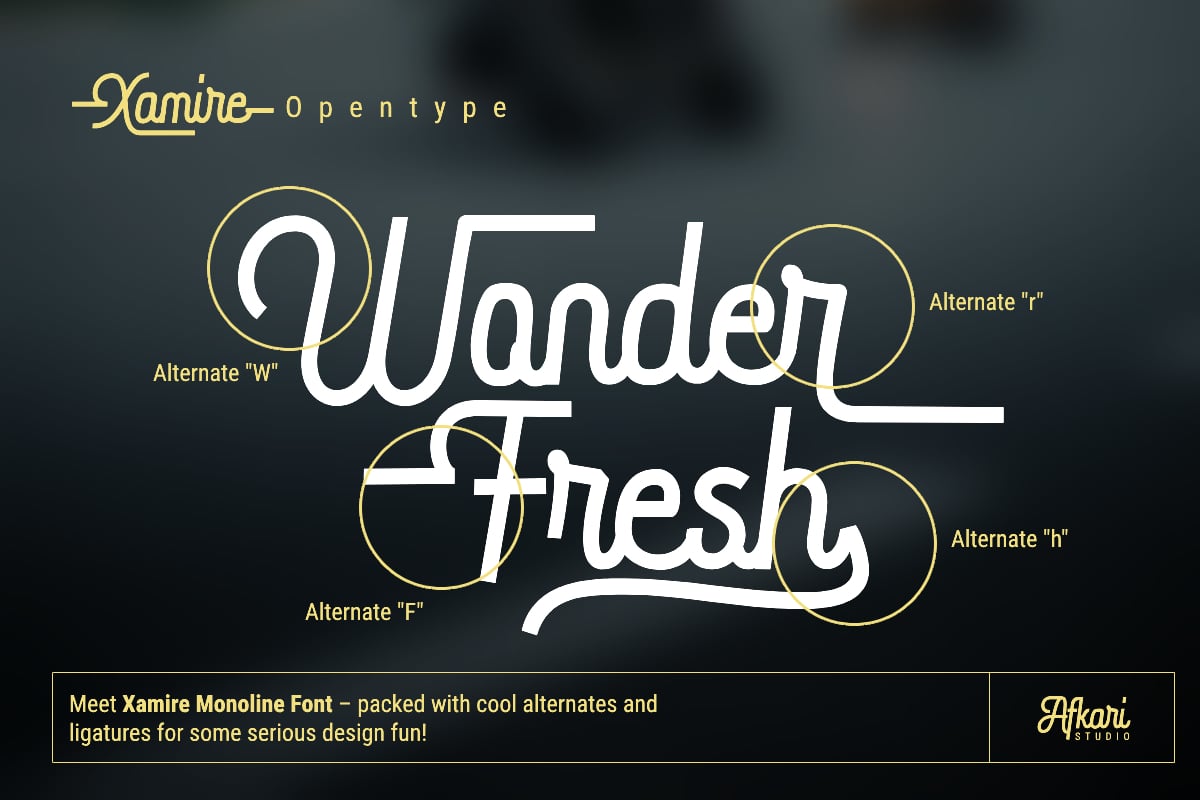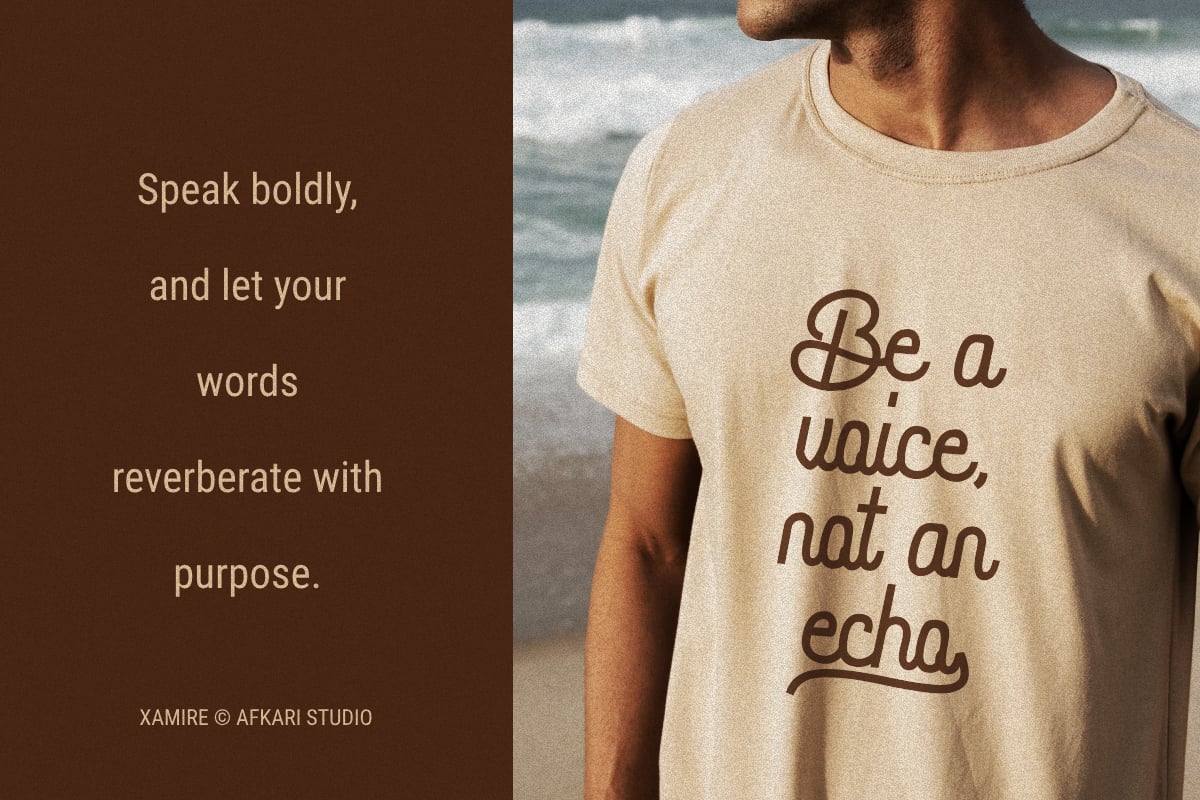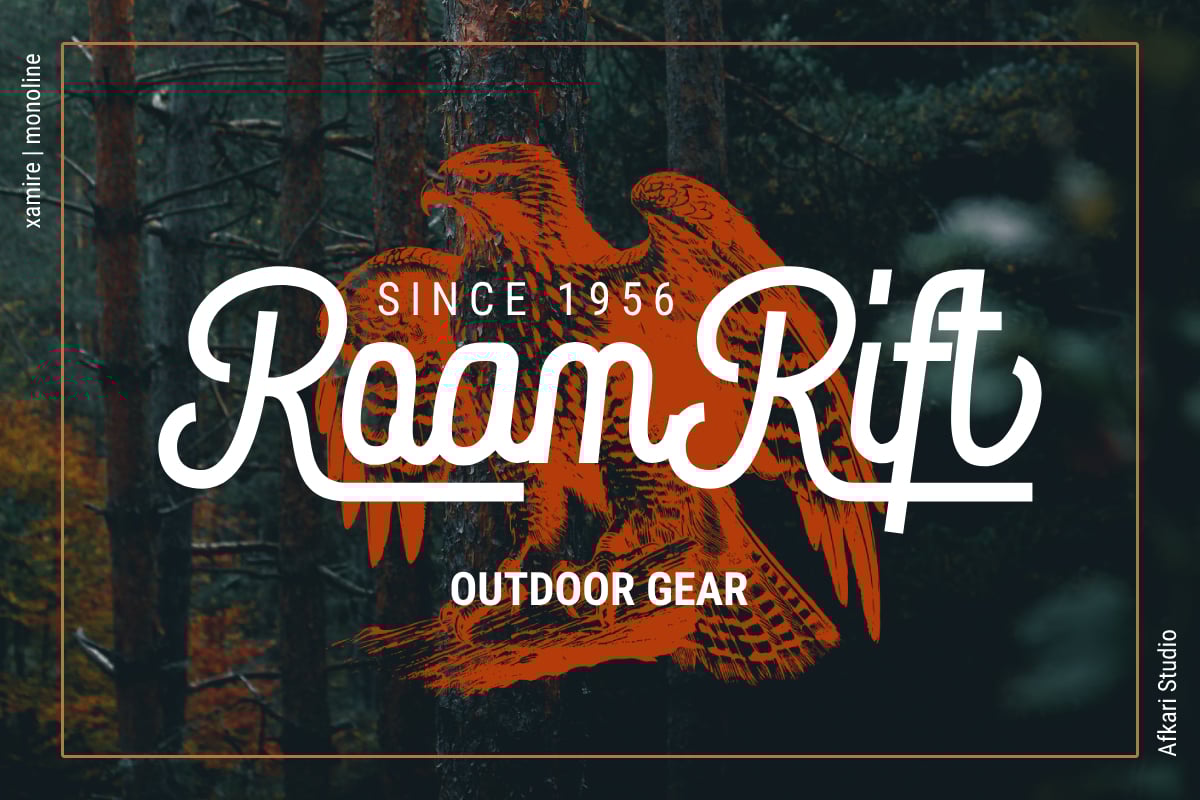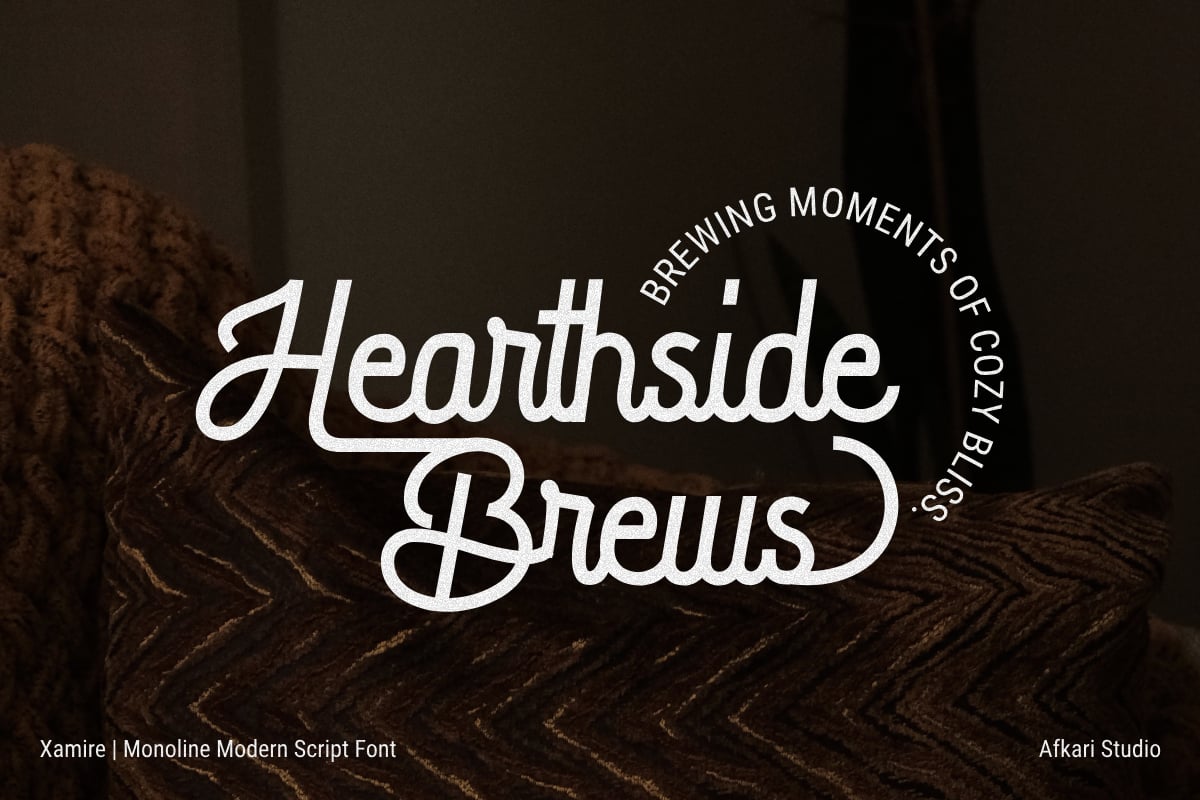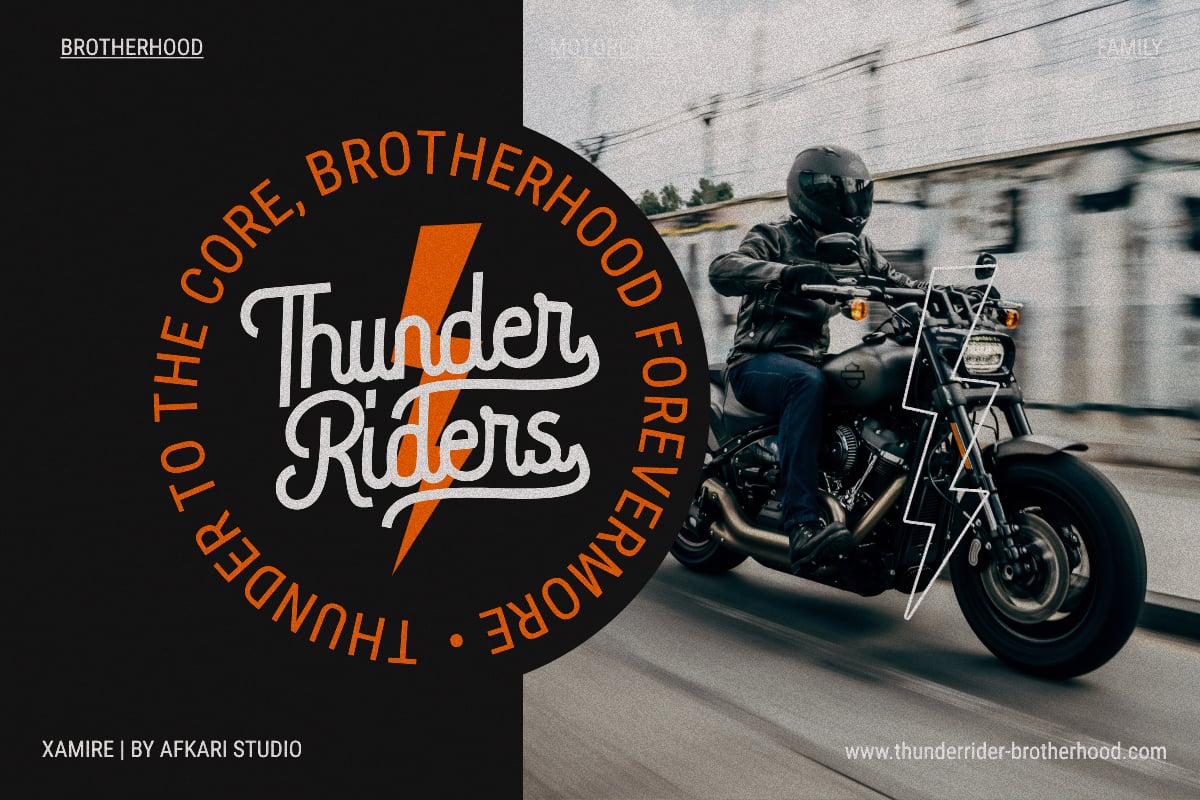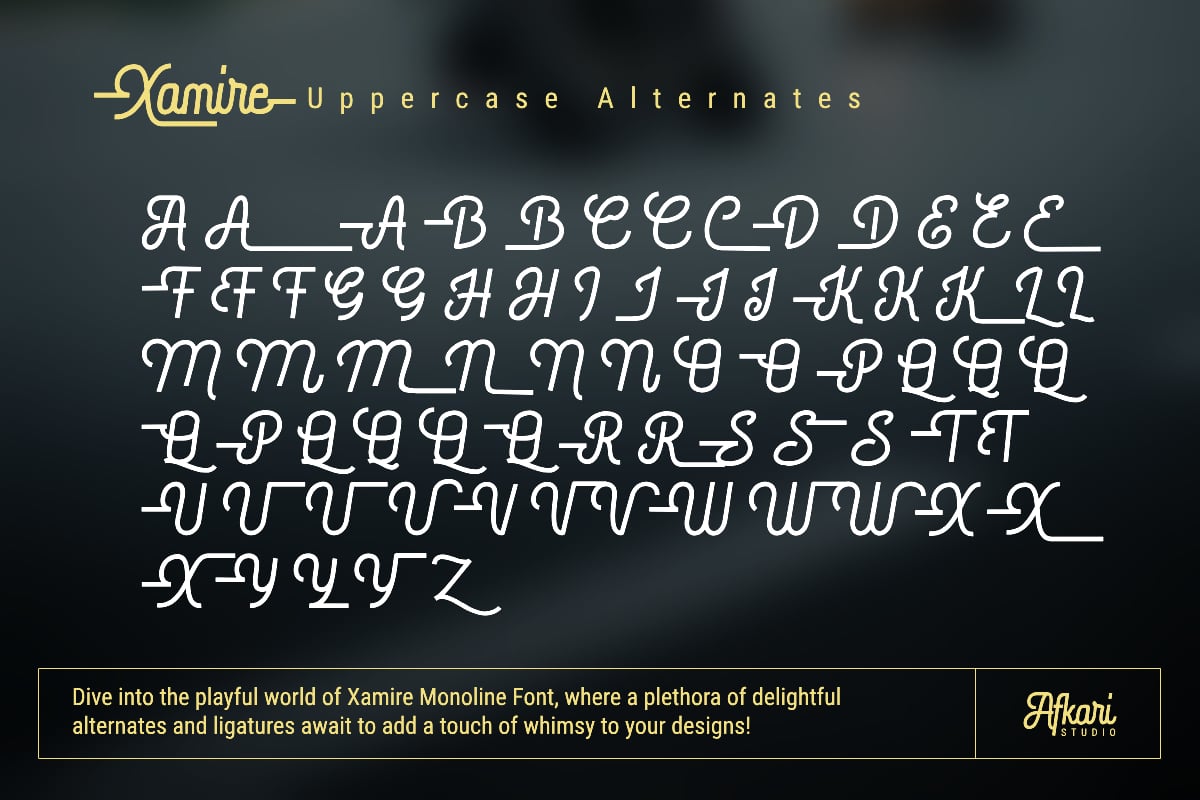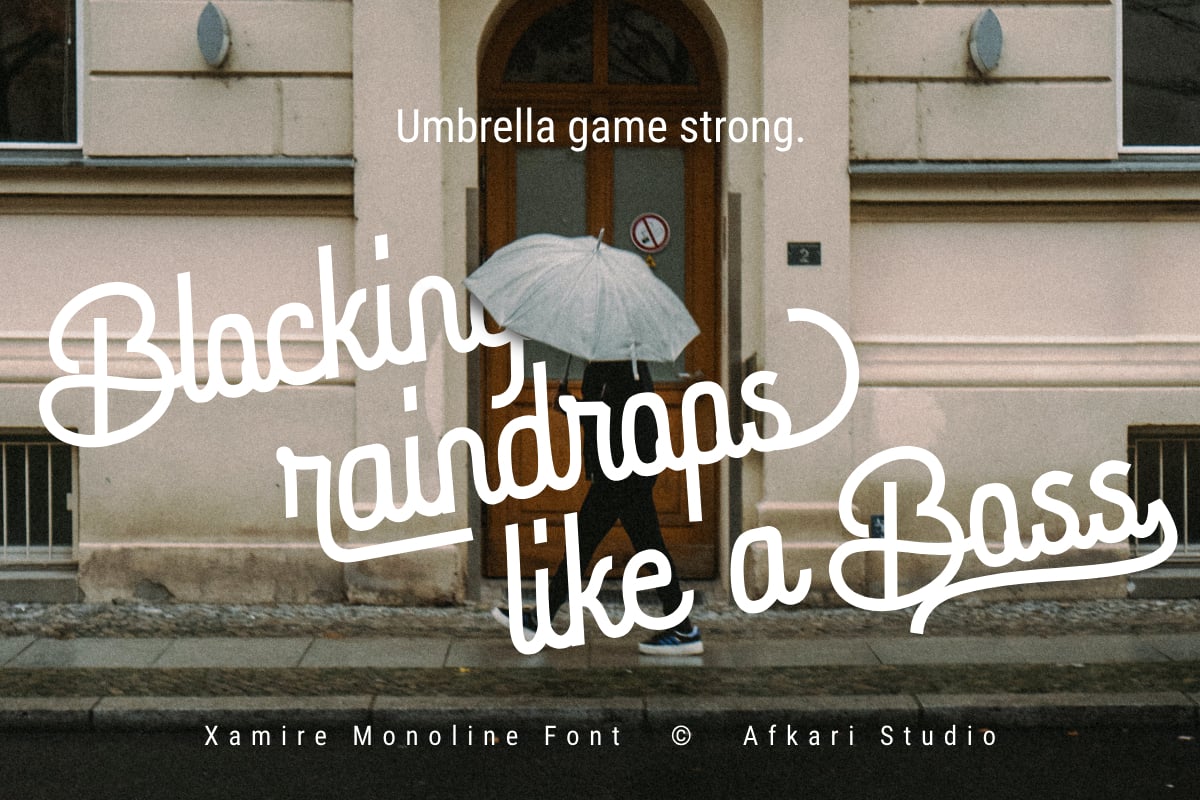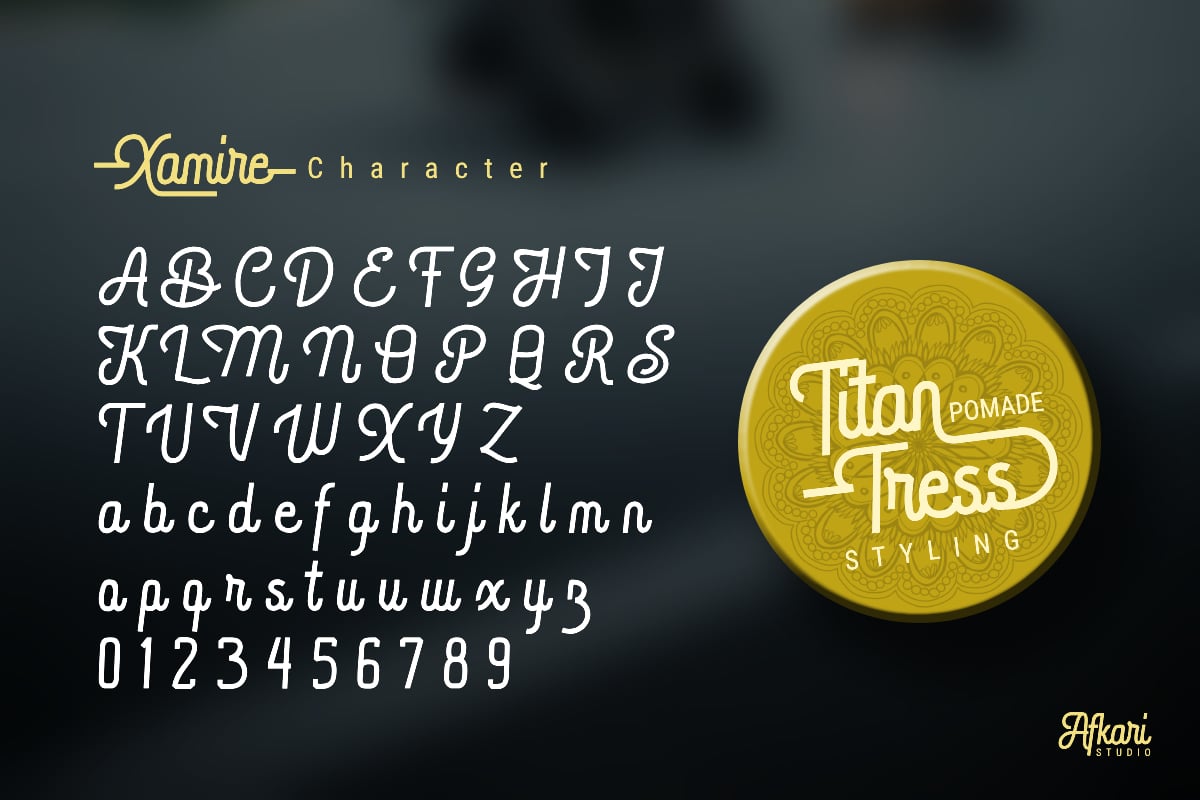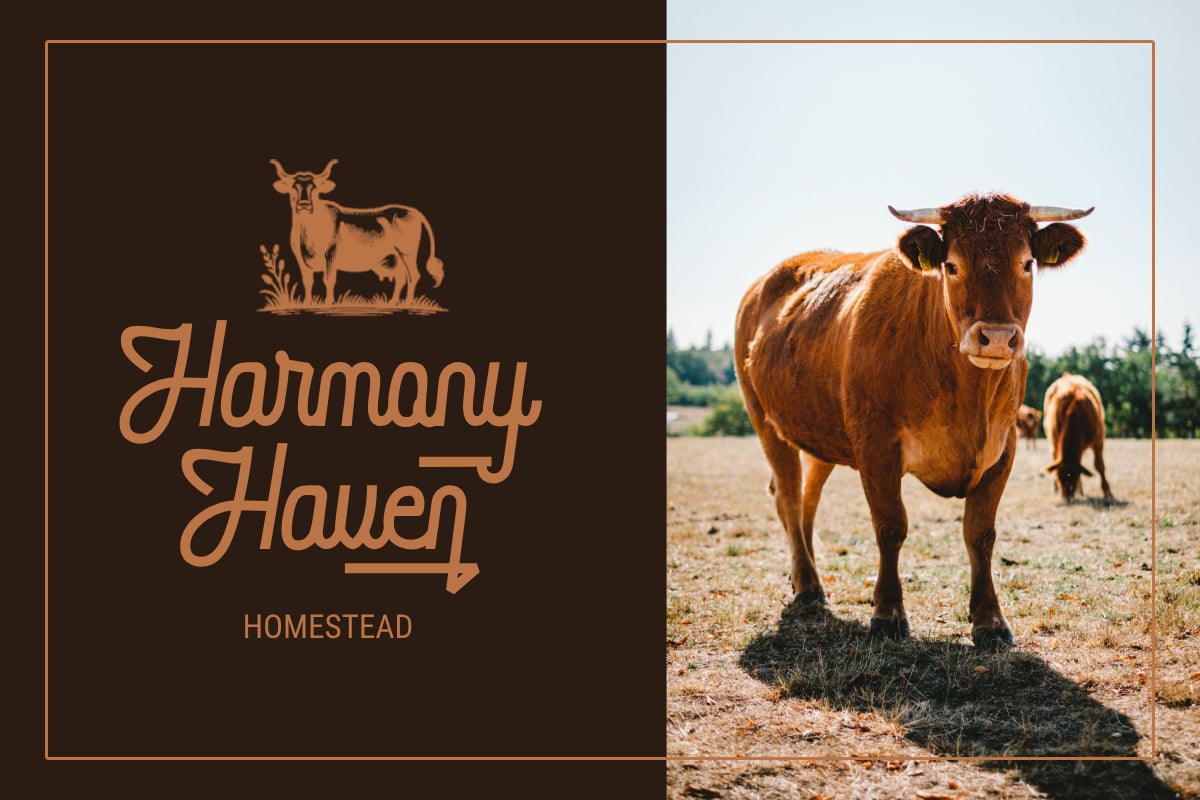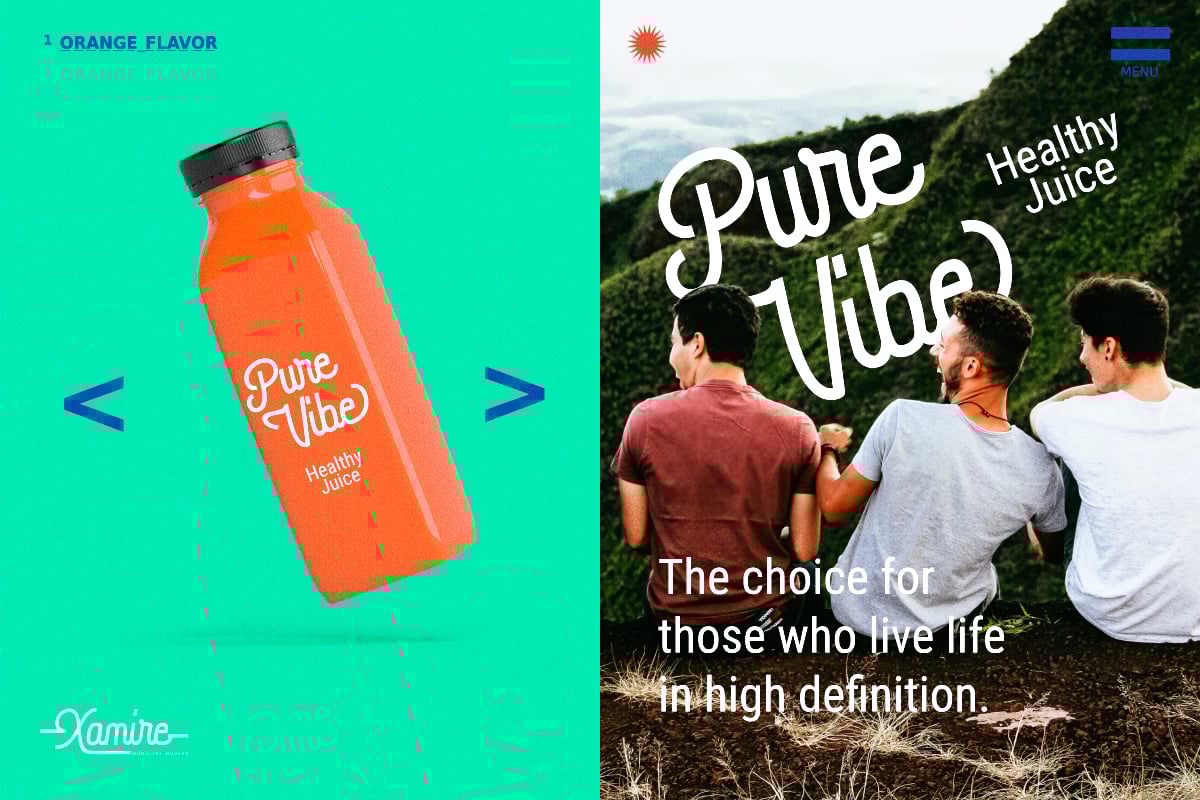
Xamire – Monoline Modern Script Font
Introducing Xamire, the epitome of elegance and modernity in typography. This monoline script font redefines sophistication, blending sleekness with a touch of artistic flair. Its seamless strokes and graceful curves exude a timeless charm, perfect for elevating any design project.
Crafted with precision and attention to detail, Xamire offers versatility that transcends traditional boundaries. Whether used for branding, invitations, advertising, or editorial design, its clean lines and effortless flow add a touch of refinement to any visual creation.
Embrace the allure of Xamire and unlock a world of creative possibilities. With its extensive character set and seamless connectivity, this font is designed to empower your designs, captivating audiences and leaving a lasting impression. Elevate your projects with Xamire – where modernity meets sophistication in every stroke.
Highlighted Features:
- Uppercase, Lowercase, Number, and Punctuation
- Special alternates and ligatures
- Mültîlíñgúãl Sùppört for; ä ö ü Ä Ö Ü ß ¿ ¡